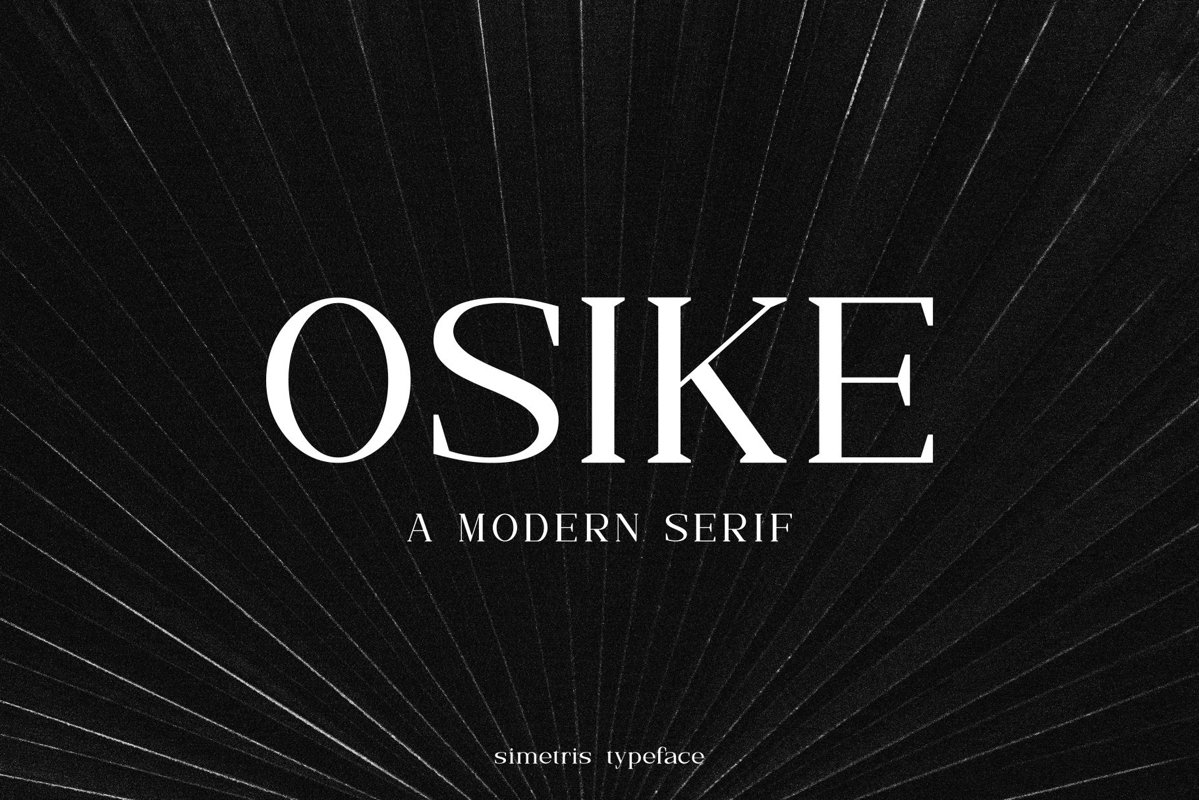
OSIKE
OSIKE Bold
OSIKE is a modern serif. It includes all basic glyphs with Non-English characters. This font will pair beautifully with the script, signature or handwriting style. It is best for headlines, titles, magazines headings, logo, advertising, posters, quotes, web layouts, invitations, packaging design, books, branding, and nearly any creative design.Included Features: